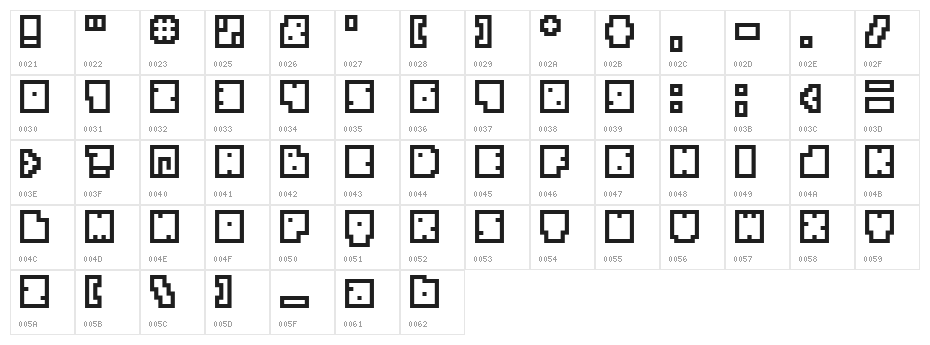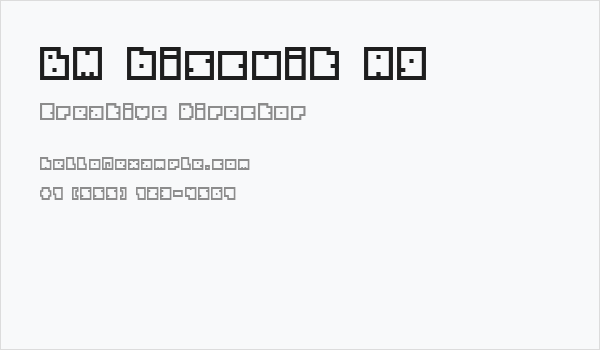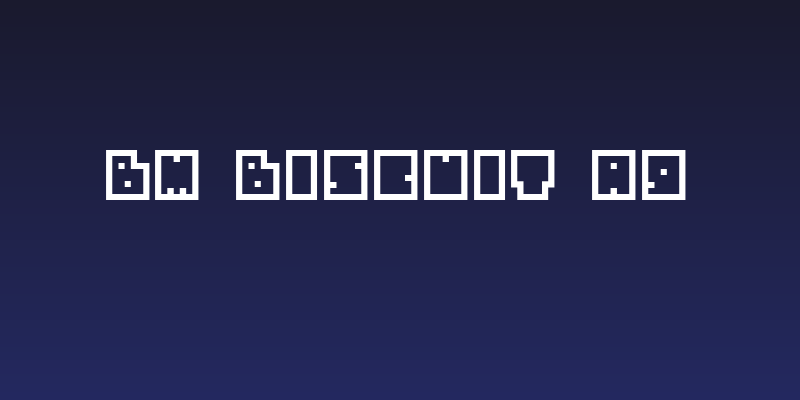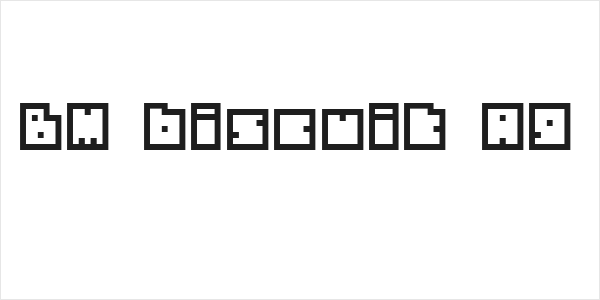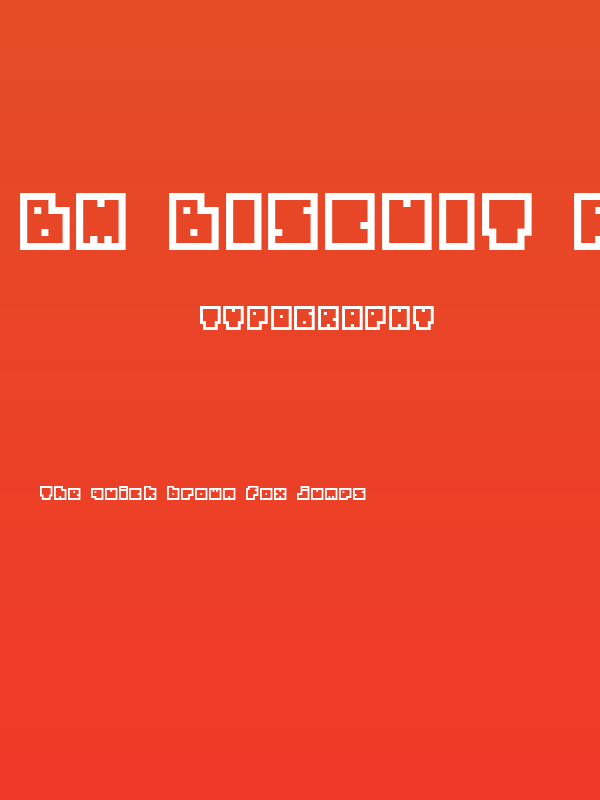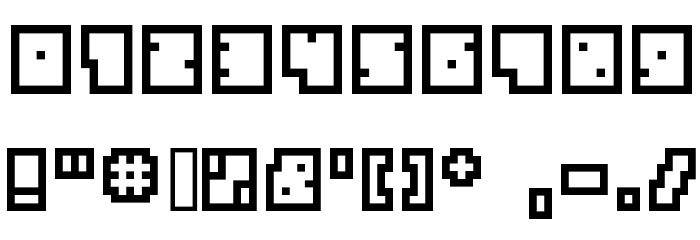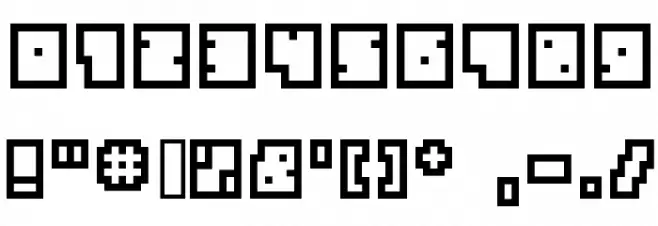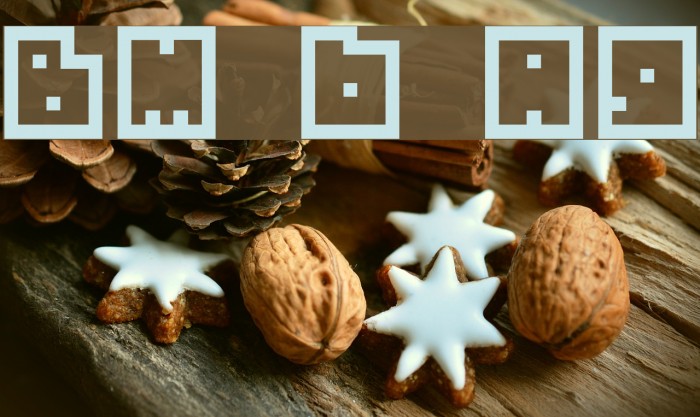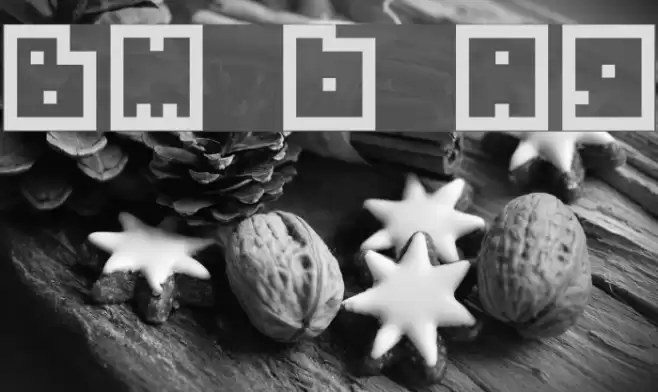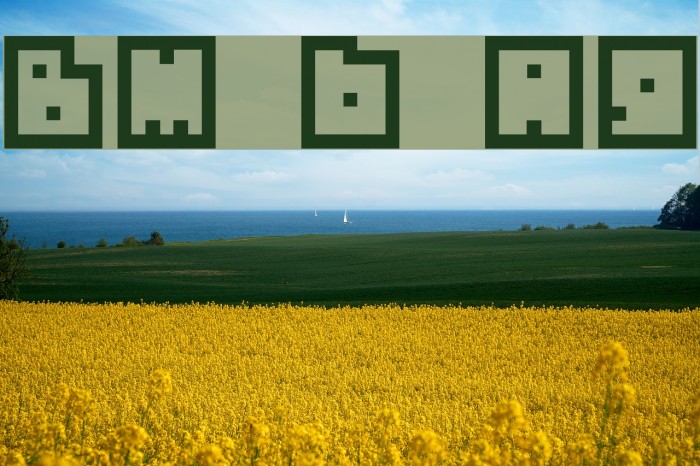
BM biscuit A9 Font
BM biscuit A9 Description
This font features a bold, geometric style with a pixelated, block-like appearance. Each character is enclosed within a square, creating a uniform and structured look. The design is reminiscent of early digital or video game typography, with sharp edges and a consistent thickness throughout. The uppercase and lowercase letters maintain a similar structure, enhancing the cohesive aesthetic. Numbers and special characters follow the same design principles, ensuring a harmonious overall appearance. The font's unique style makes it stand out, ideal for projects that require a retro or digital theme.
| Overall Style | Retro, Digital |
| Proposed Projects | Ideal for video game design, digital art projects, retro-themed posters, and branding that requires a distinct, digital look. |